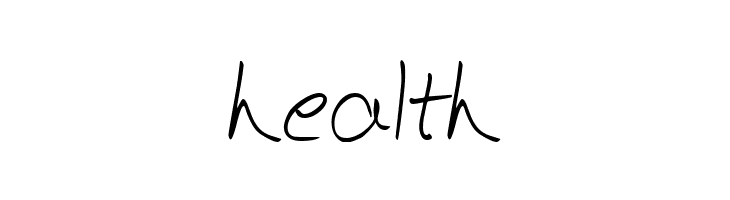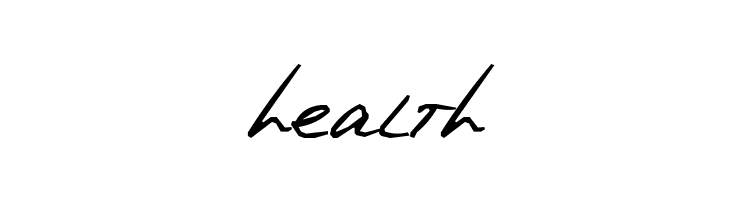
( Fonts by John David www.easywriter.com/fonts/ )
A playful, handwritten font with dynamic strokes and a casual style.
( Fonts by Omega Font Labs )
A bold, expressive handwritten font with dynamic and playful letterforms.
( Fonts by Omega Font Labs )
A playful, hand-drawn font with hollow interiors and a graffiti-like aesthetic.
( Fonts by Varian`s Dreamfonts )
A playful and whimsical font with flowing, irregular strokes and dynamic characters.
( Fonts by Varian`s Dreamfonts )
A playful, handwritten-style font with bold, dynamic strokes.
( Fonts by Varian`s Dreamfonts )
A bold, italic script font with dynamic and flowing letterforms.
( Fonts by PhontPhreak )
A casual, handwritten font with fluid strokes and a personal touch.
( Fonts by Denise Chan - www.idenise.net )
A casual, handwritten font with a playful and informal style.
( Fonts by Omega Font Labs )
A casual, handwritten font with fluid and organic strokes.